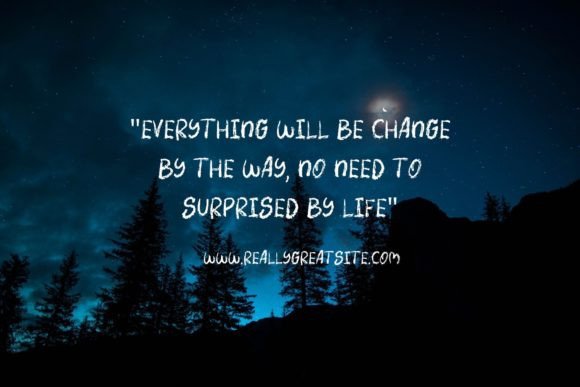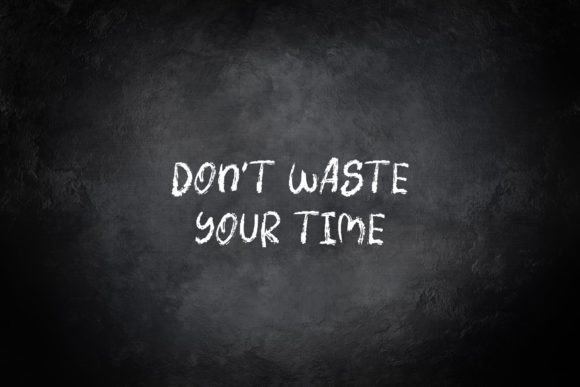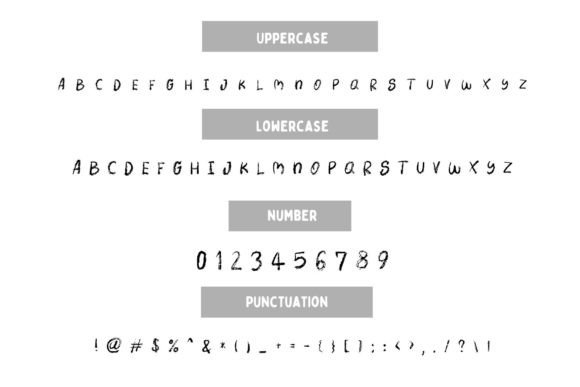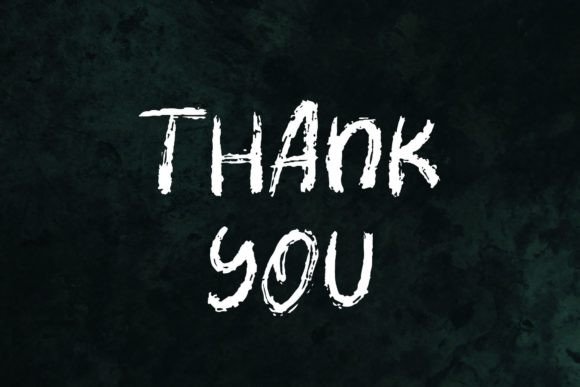
The Perfect Brush Font for Creative Projects: Gideon Font
Have you ever been in the middle of a design project, and suddenly, you’re stuck on finding the perfect font? I recall a recent experience where I was working on a branding project for a client’s handmade jewelry business. The client wanted a font that embodied playfulness and authenticity, but I was struggling to find the right fit. That’s when I stumbled upon the Gideon Font, a handwritten brush font that exceeded my expectations.
A Personal Review of Gideon Font
- ✨ Unique and authentic handwritten style that adds a personal touch to any design
- ✅ Highly legible, even in smaller sizes
- 🎨 Versatile and suitable for a wide range of projects, from blog posts to logos and branding
- 💫 Beautifully crafted with attention to detail, making it perfect for high-end designs
While Gideon Font is an excellent choice, it’s essential to note some minor quirks:
- 🤔 Limited availability of stylistic alternates, which might limit its use in certain designs
- ⚠️ May not be the best choice for body text, as it’s more suited for headings and titles
The Story Behind Gideon Font
Gideon Font was created with the intention of providing a unique, handwritten font that captures the essence of playfulness and authenticity. The designer aimed to craft a font that would be versatile and suitable for a wide range of projects, from creative hobbyist endeavors to professional branding and advertising.
| What type of projects is Gideon Font best suited for? | Gideon Font is perfect for a wide range of projects, including blog posts, logos, branding, ads, invitations, greeting cards, planners, photo albums, and decorations. |
| Is Gideon Font available in different styles or weights? | Currently, Gideon Font is available in a single style. However, the designer may release additional styles or weights in the future. |
Overall, Gideon Font is an excellent choice for designers, crafters, and creative hobbyists looking for a unique, handwritten brush font. Its playfulness and authenticity make it perfect for a wide range of projects. With its ease of use and versatility, Gideon Font is sure to become a favorite in your design arsenal.